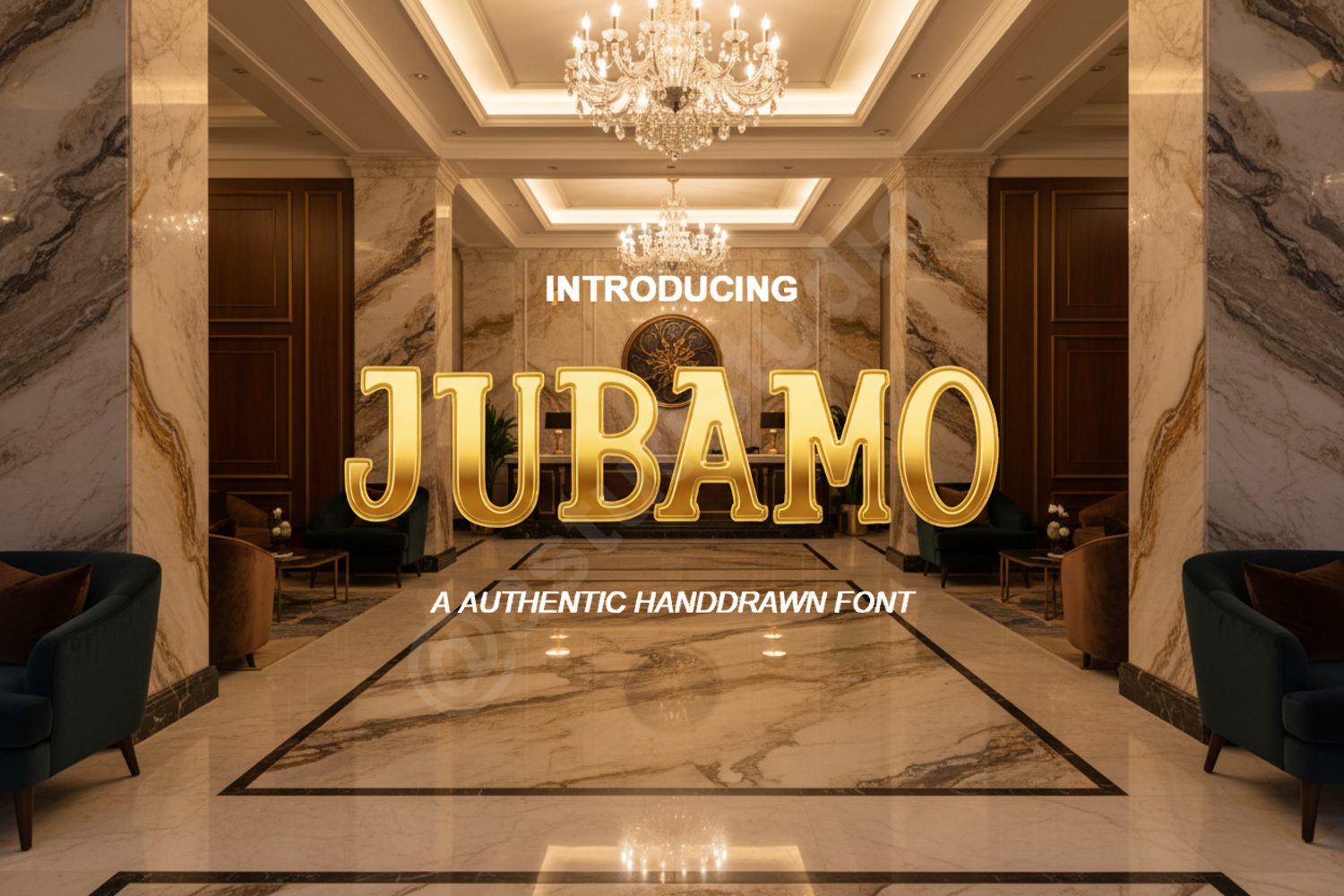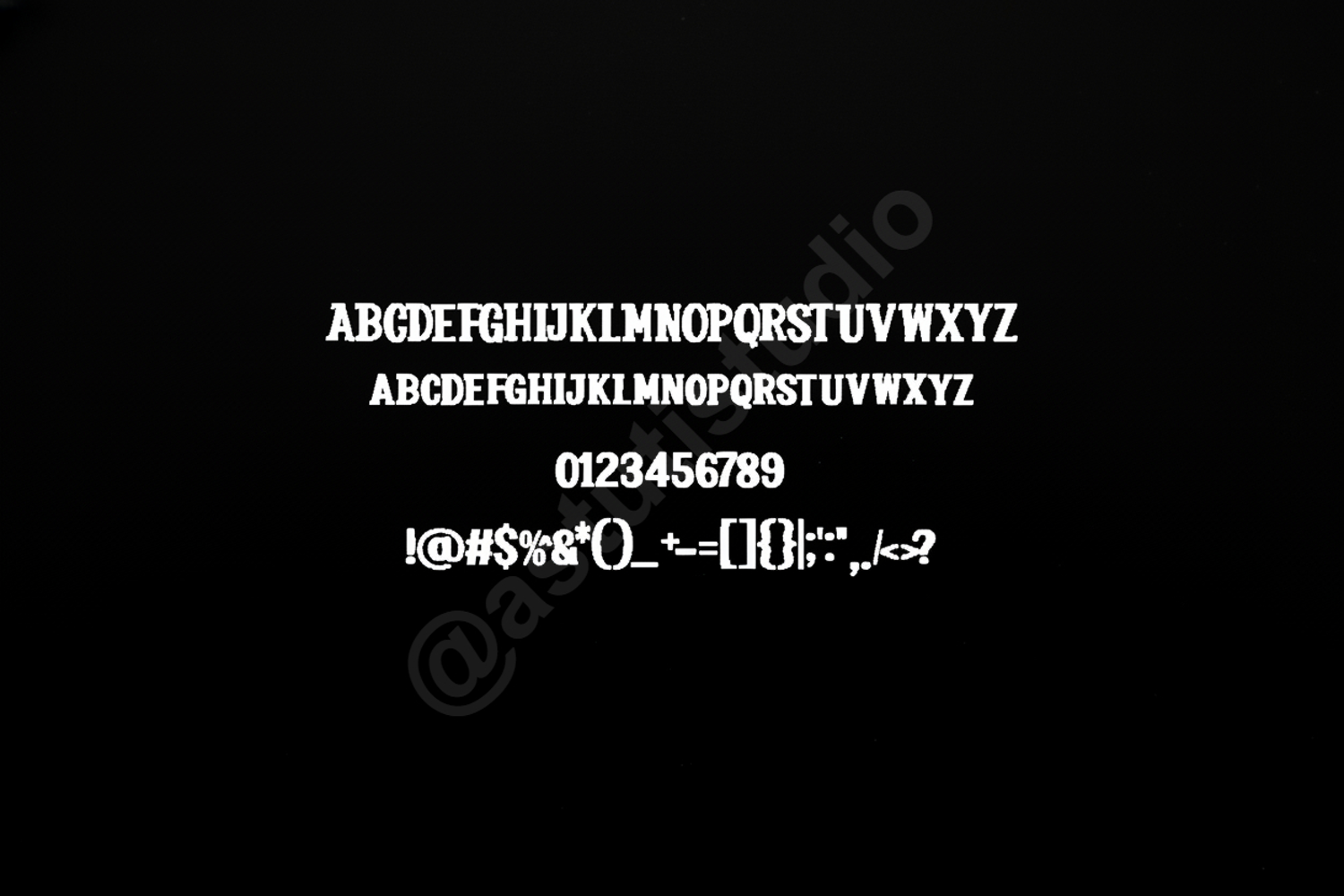
Jubamo - Bold Modern Geometric Display Font
Jubamo
Experience the perfect blend of contemporary aesthetics and structural precision with Jubamo. This premium geometric display font is meticulously crafted to bring a professional and sophisticated edge to your creative projects. Whether you are aiming for a minimalist look or a bold statement, Jubamo provides the versatility needed to stand out in a crowded marketplace with its clean lines and balanced proportions.
- Full Uppercase and Lowercase Alphabet
- Comprehensive Numbers and Punctuation
- Extensive Multilingual Support for global reach
- Professional Branding and Identity: Create memorable logos and corporate stationery that resonate with quality.
- Social Media Graphics: Enhance your Instagram, Pinterest, and Facebook posts with high-impact, readable typography.
- Editorial Design: Perfect for standout magazine headlines and stylish layout spreads.
- Product Packaging: Add a high-end, premium feel to product labels, boxes, and tags.
- Website Headers: Ensure your digital presence is modern, clean, and easy to navigate.